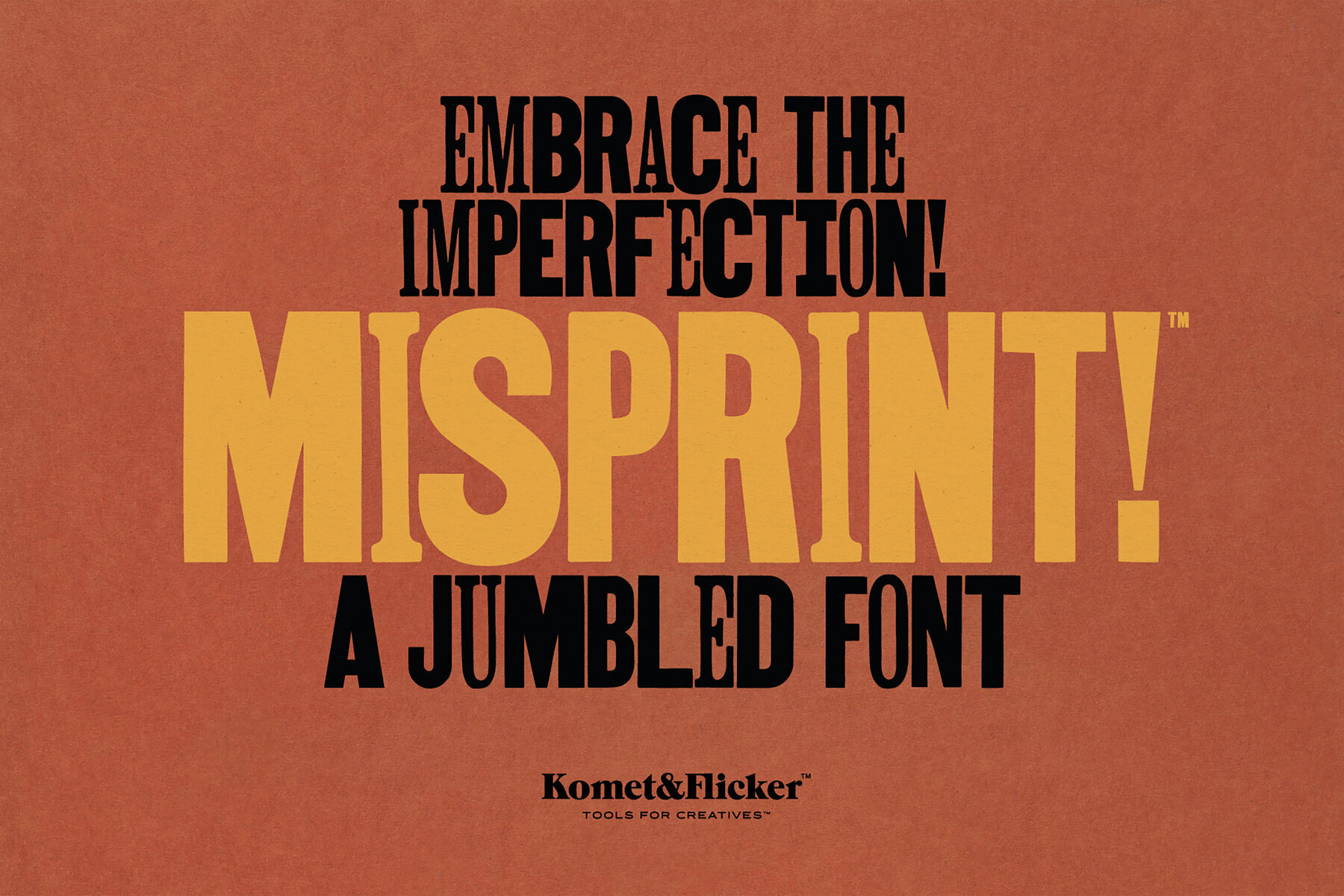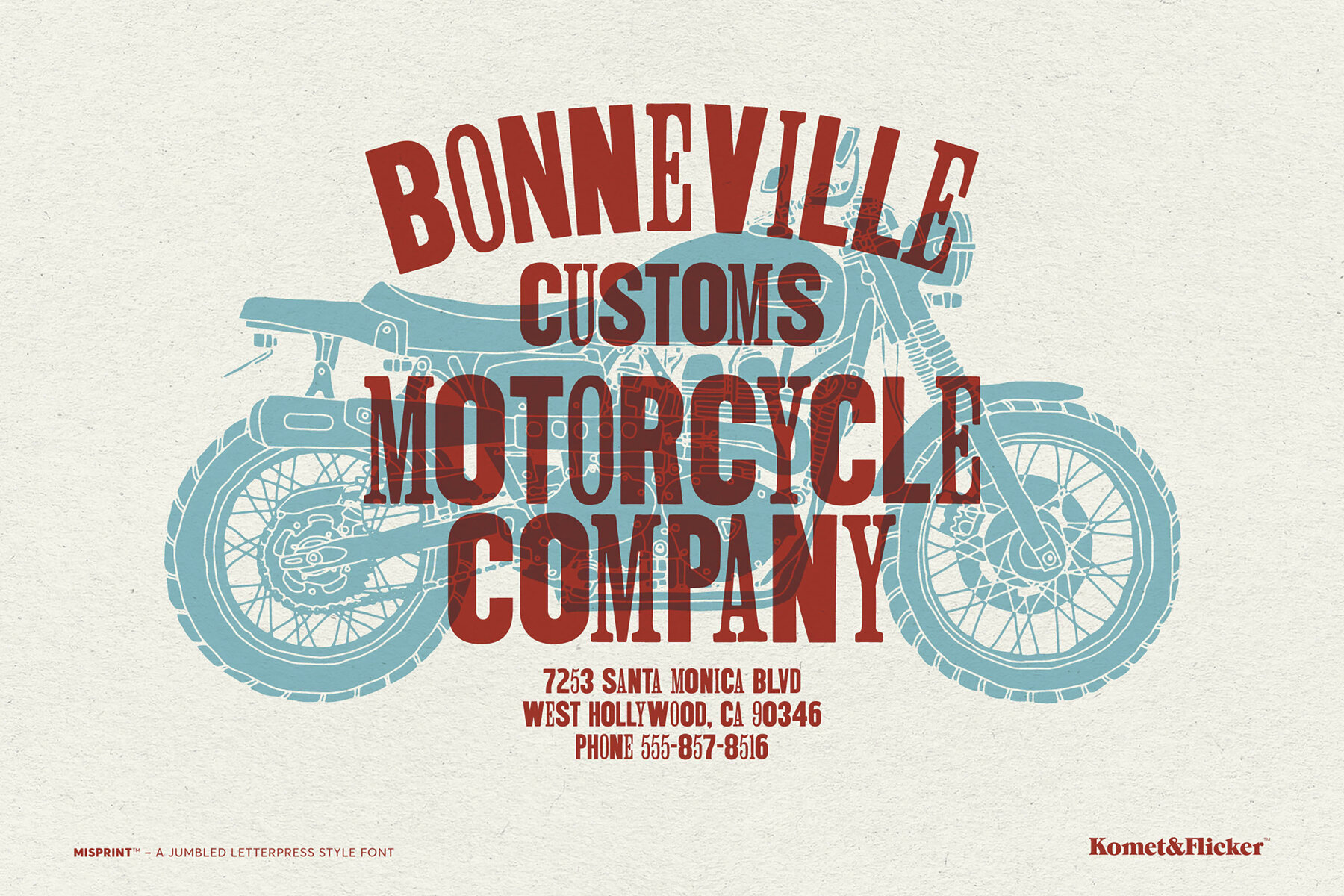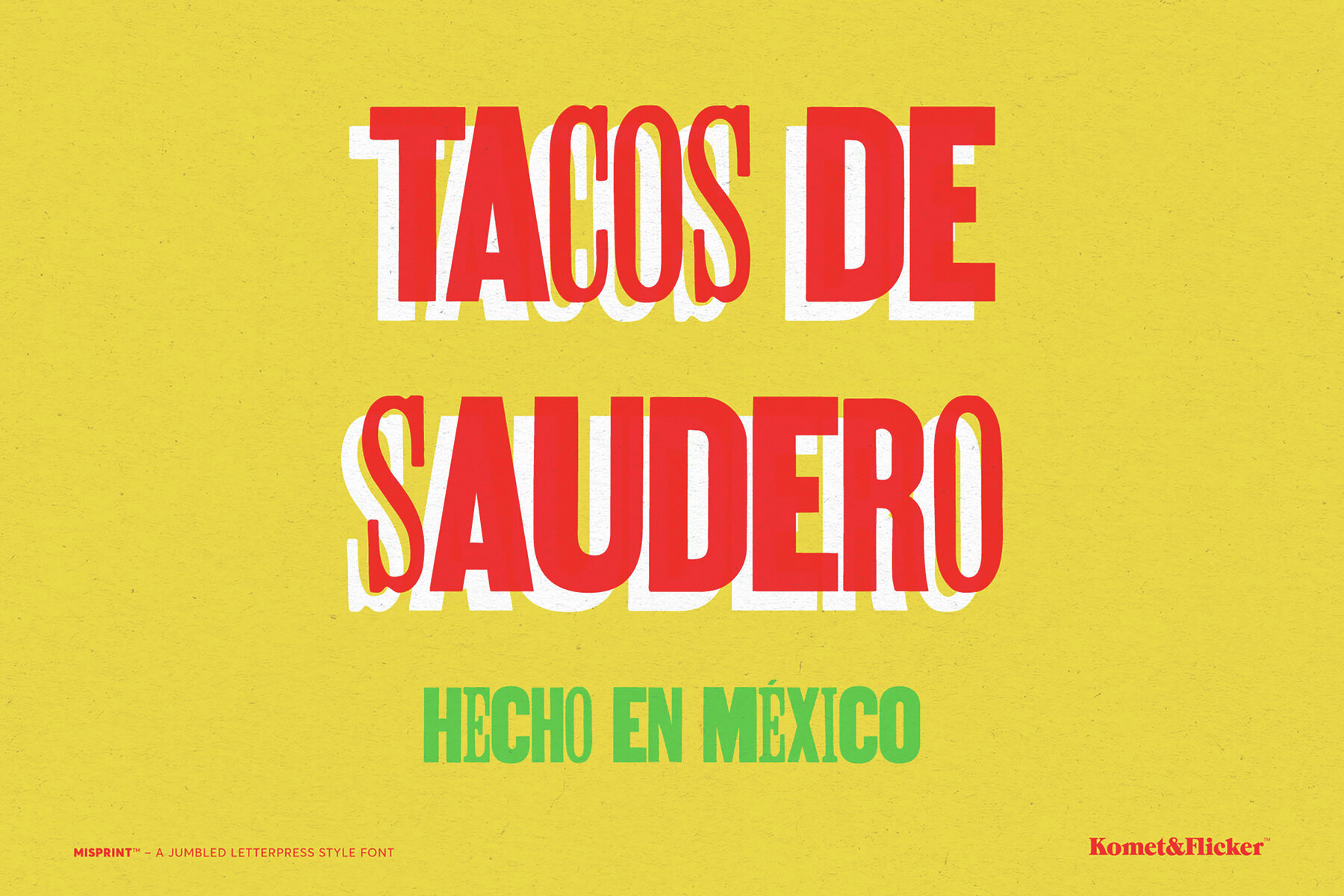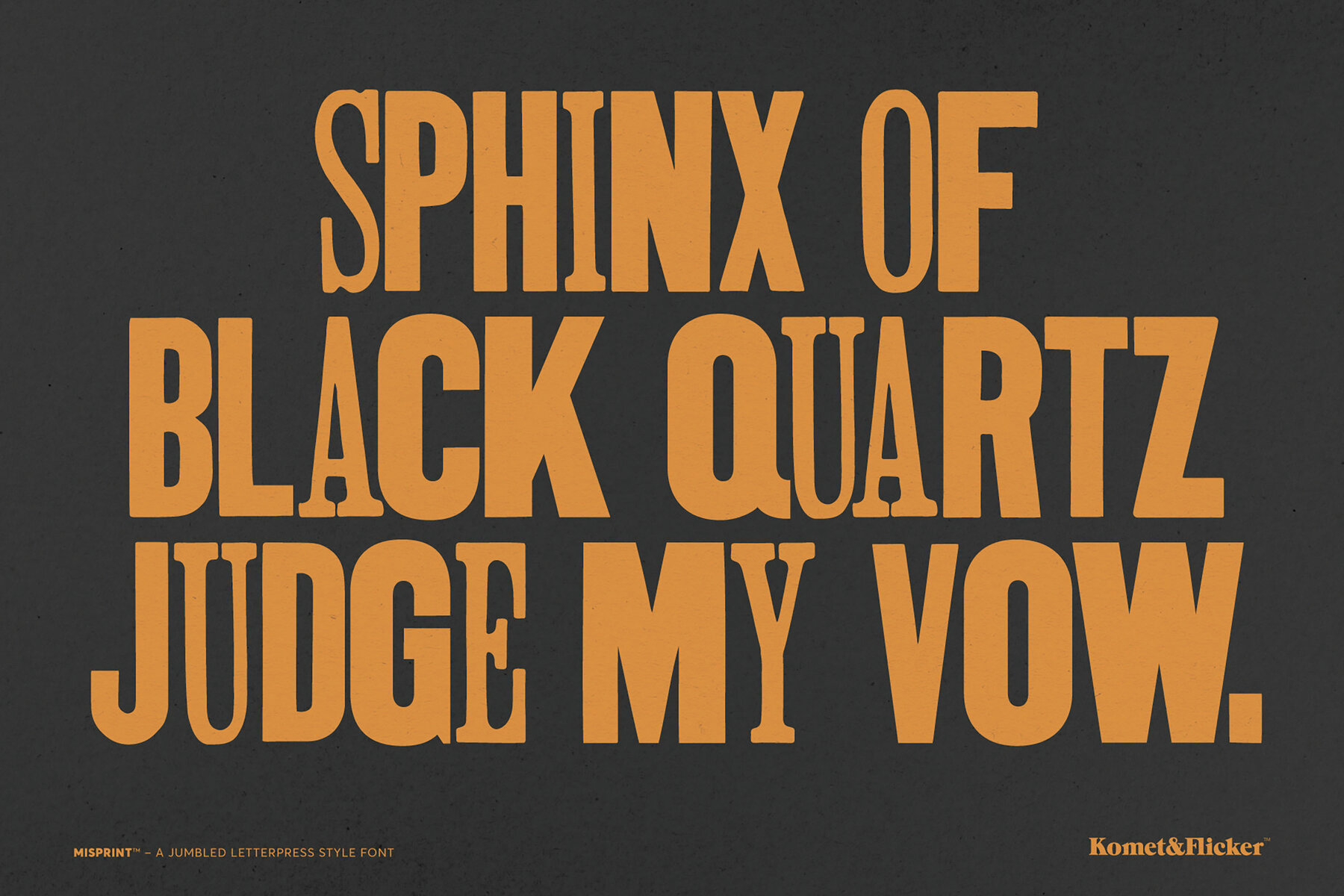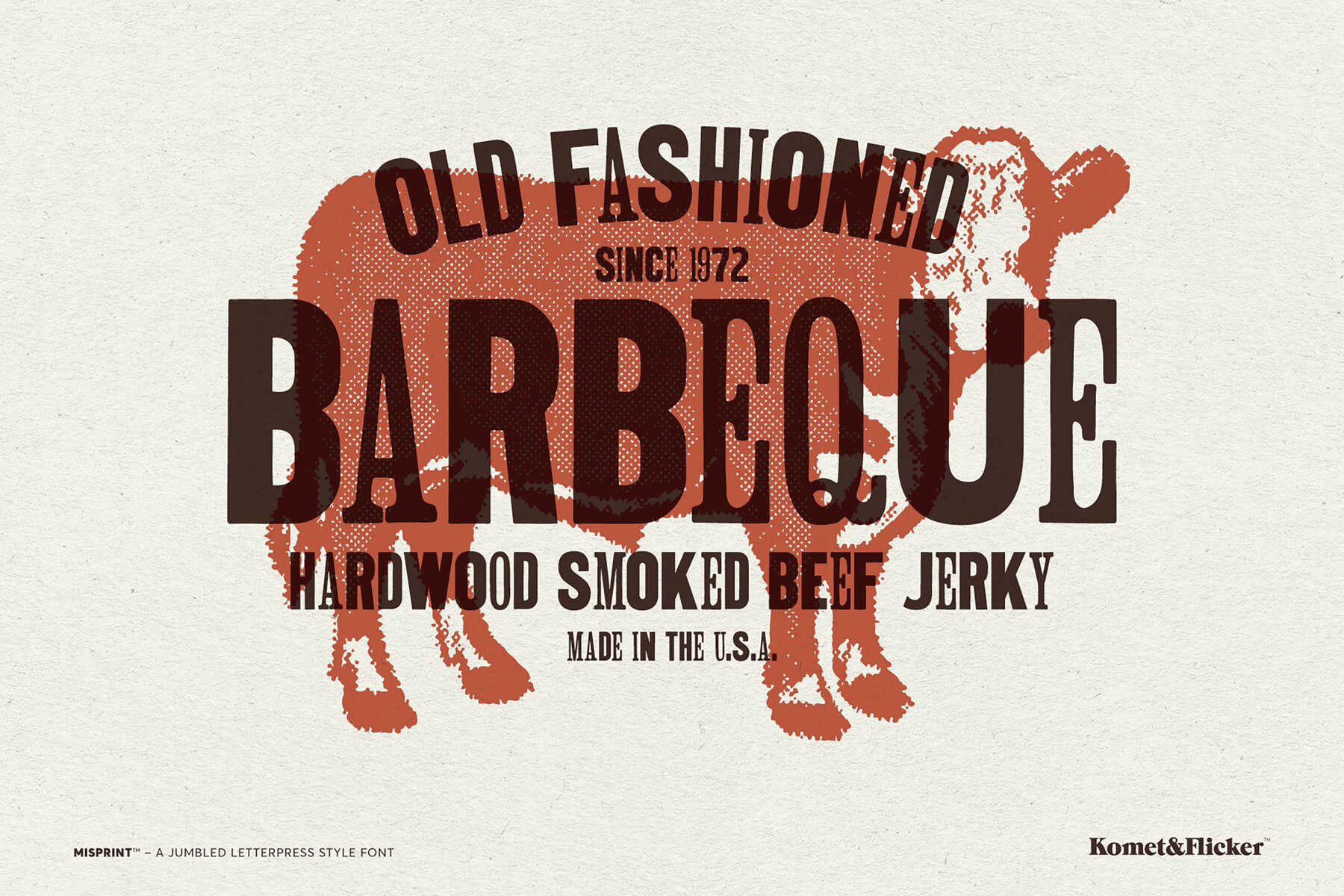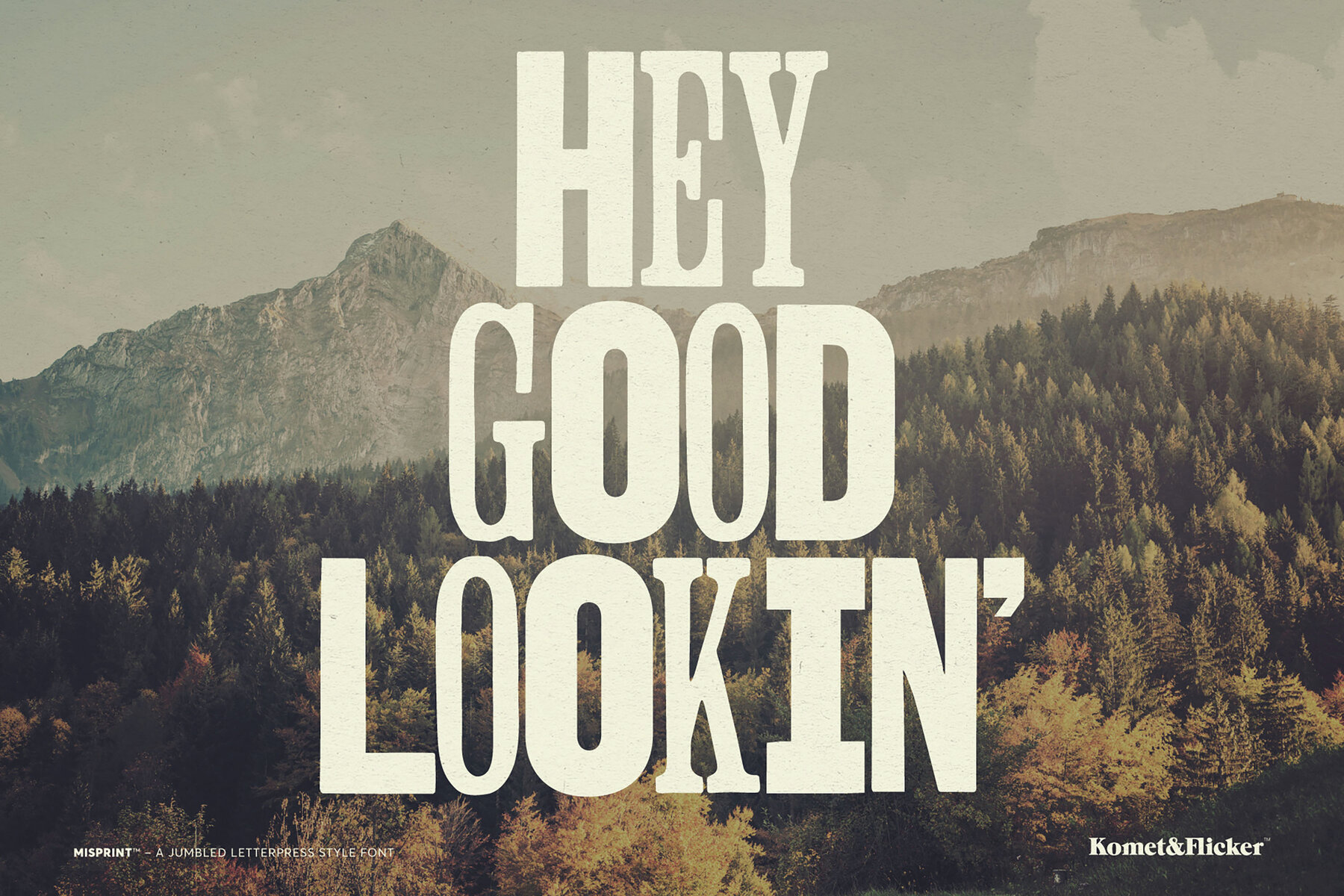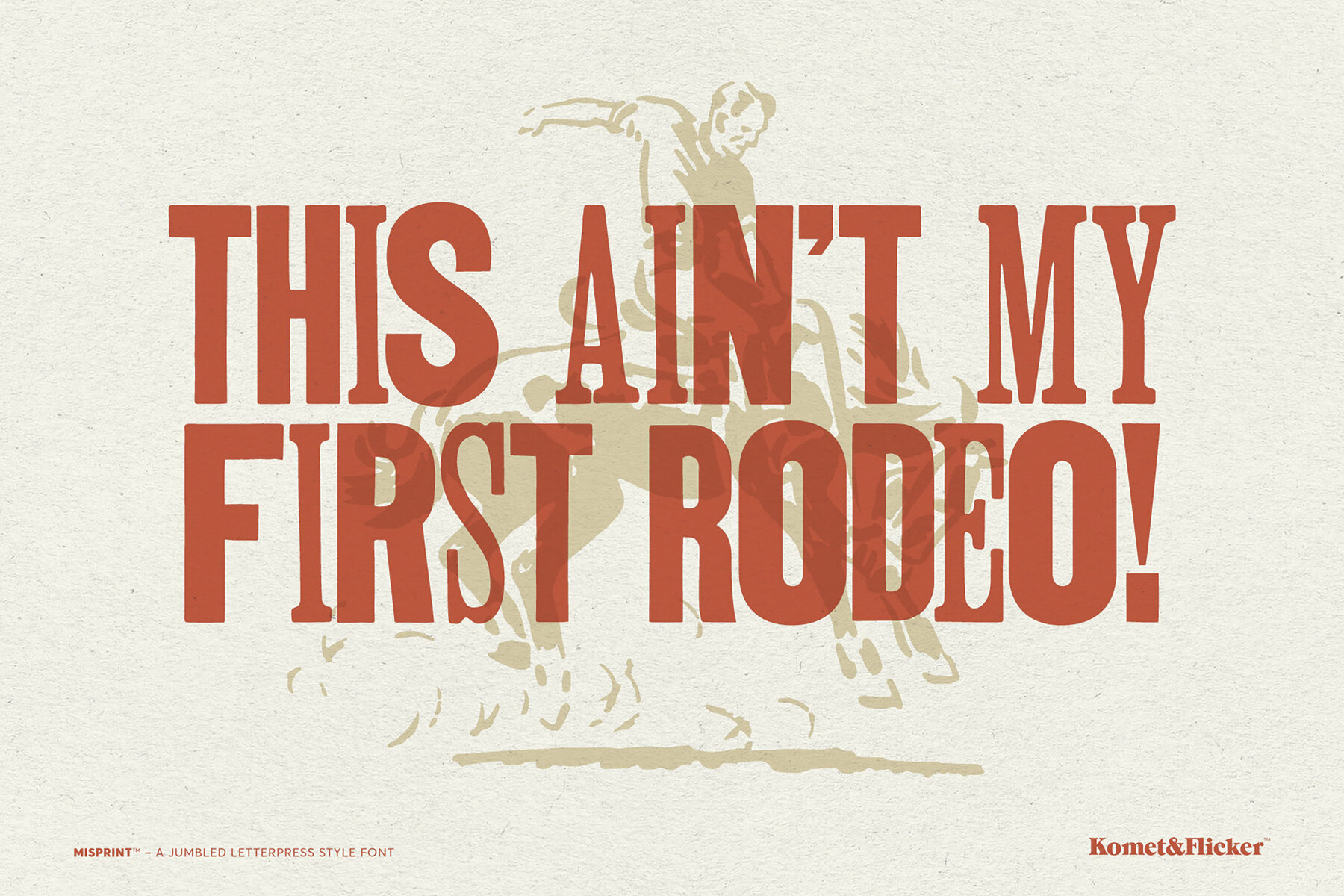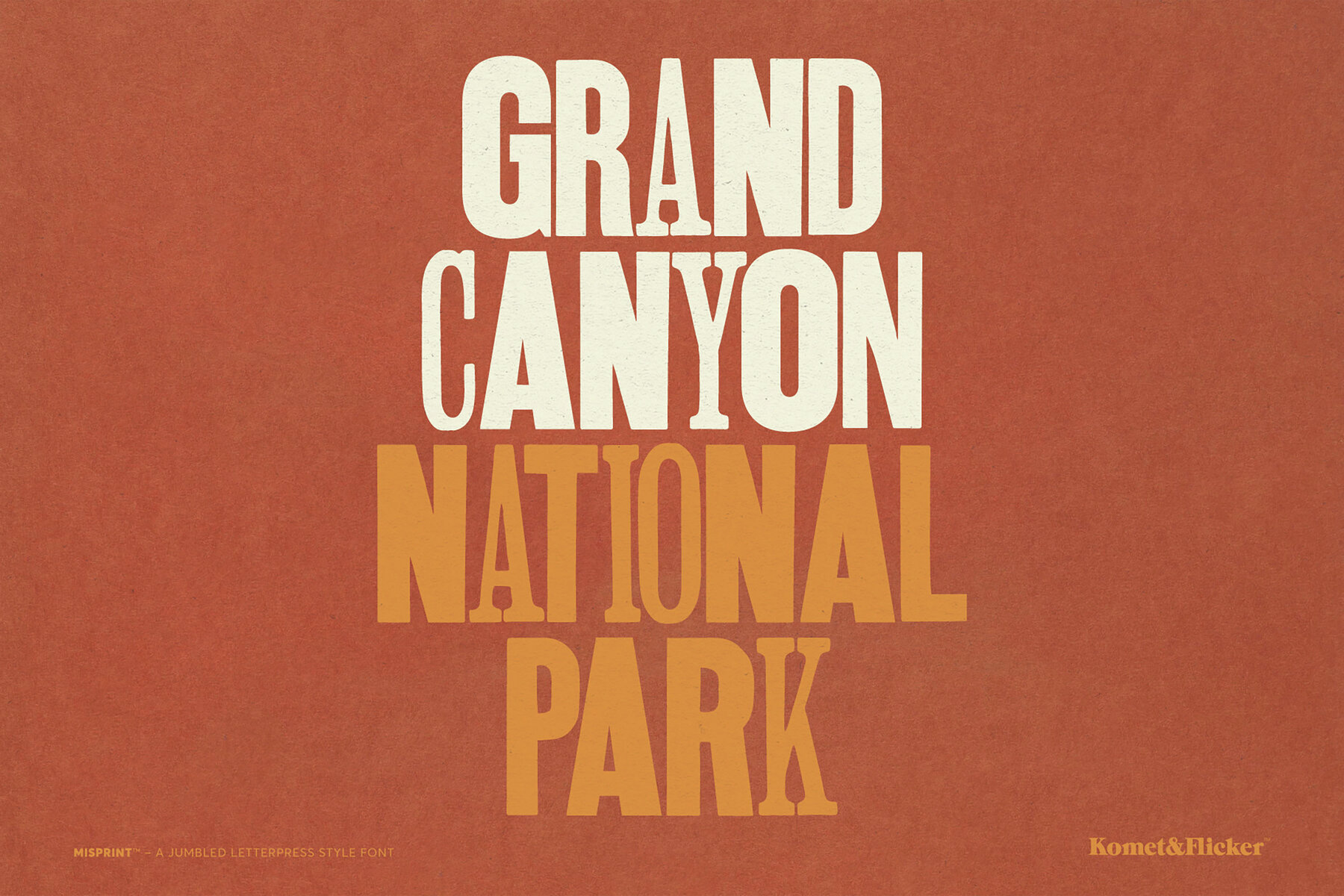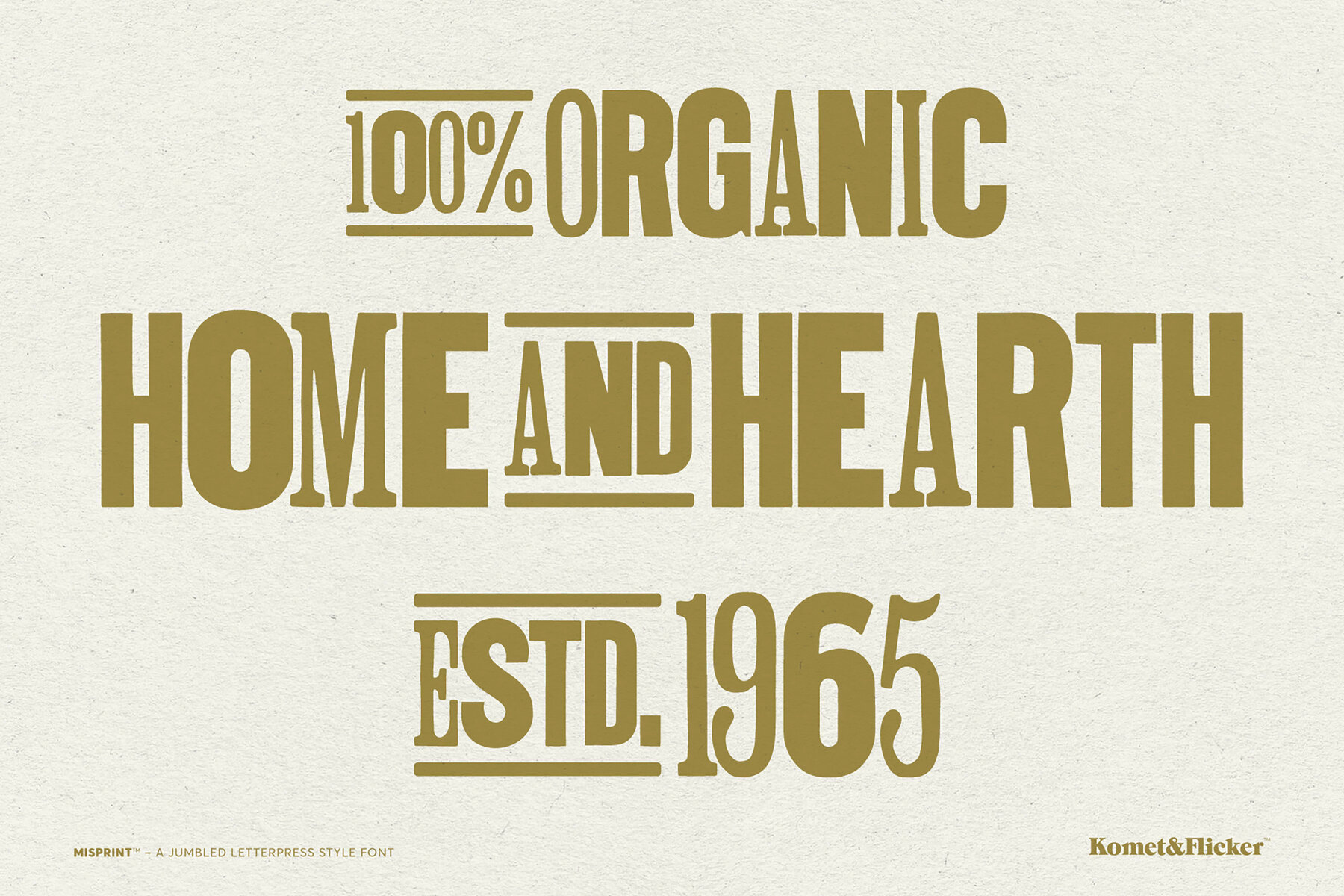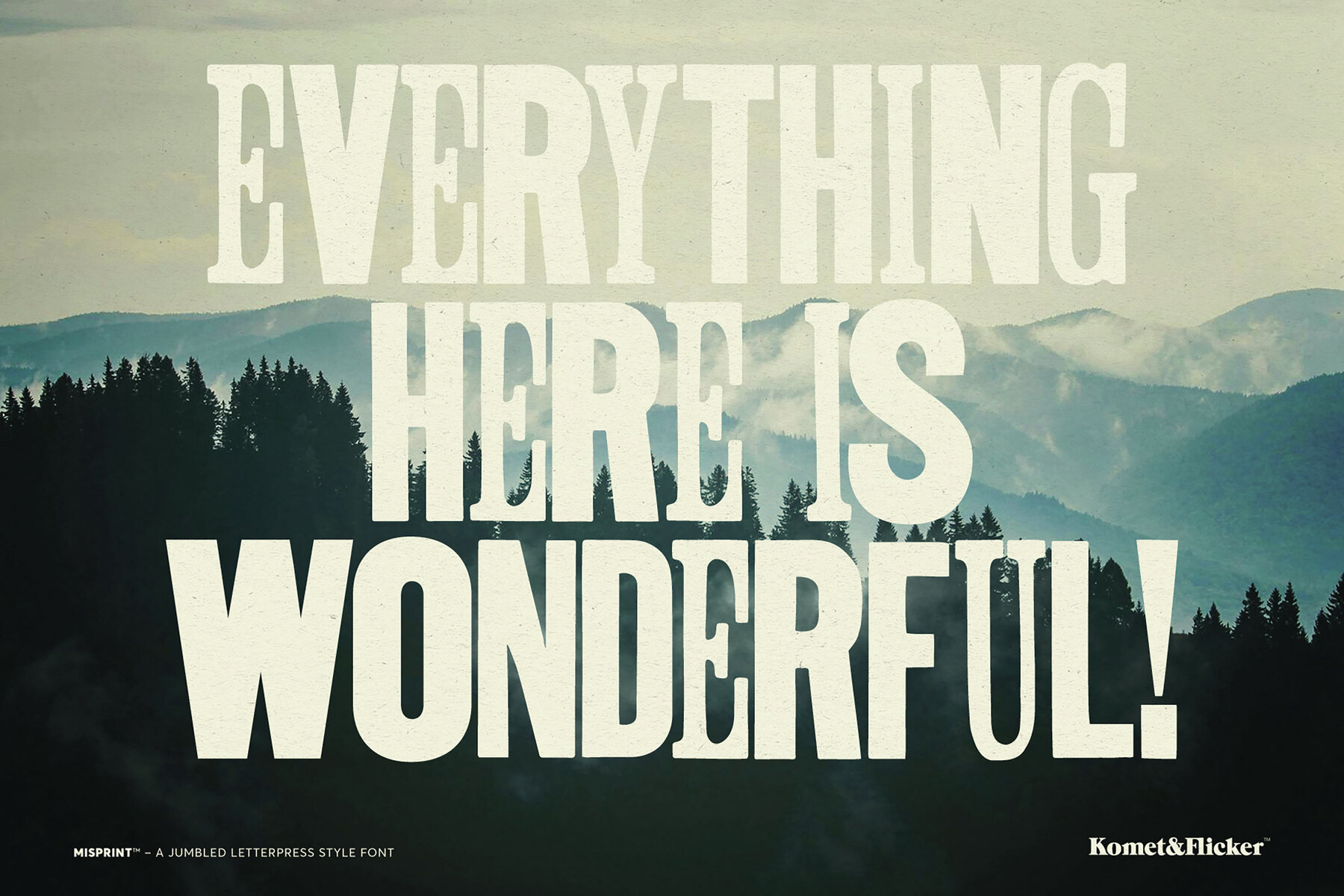
Misprint Font
Misprint Bold
Emulating the distinctive allure of vintage wood type letterpress, MISPRINT! is a bold, all-caps font brimming with character. Its hand-printed aesthetic is ideal for projects that demand individuality, such as posters, packaging, or branding. The lowercase letters serve as alternates, enabling designers to inject natural variation, while additional glyph alternates keep your typography fresh and unpredictable. For easy access to these custom glyphs in Illustrator, utilize the "Type → Glyphs" panel. In Photoshop, find them under "Type → Panels → Glyphs Panel".MISPRINT!: Bold All-Caps Font With Vintage Charm
Inclusivity and Features